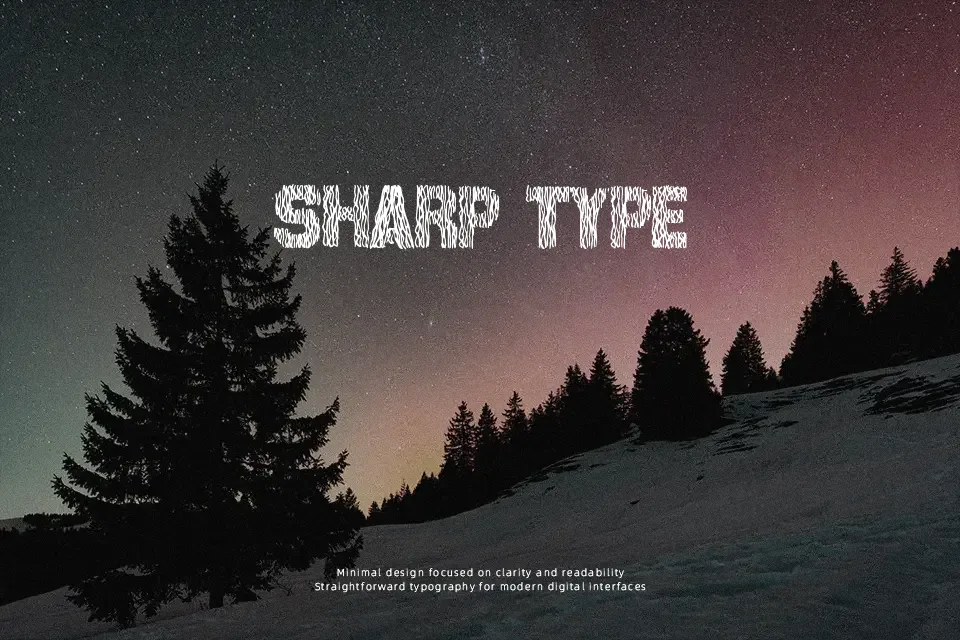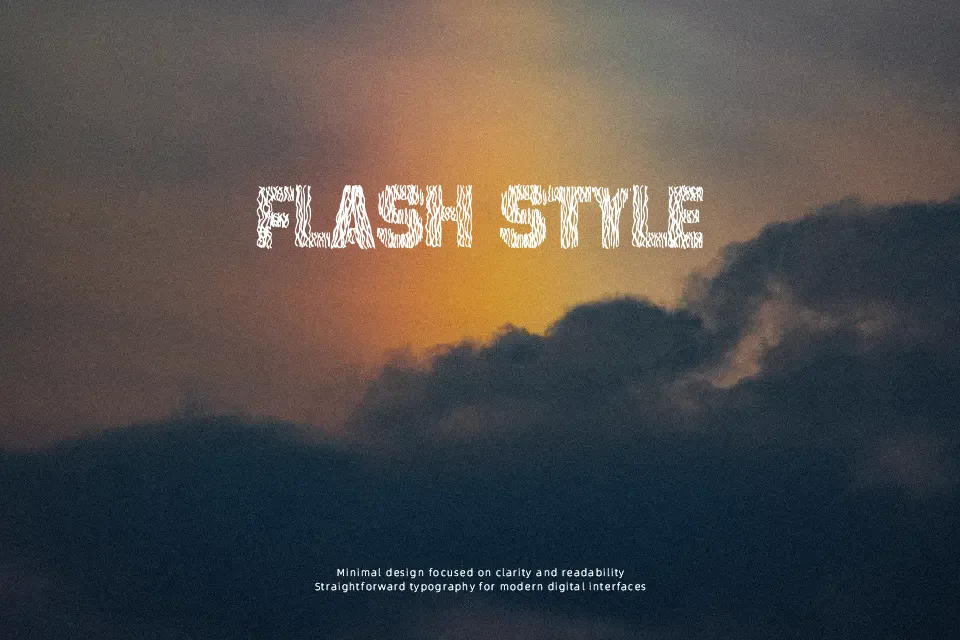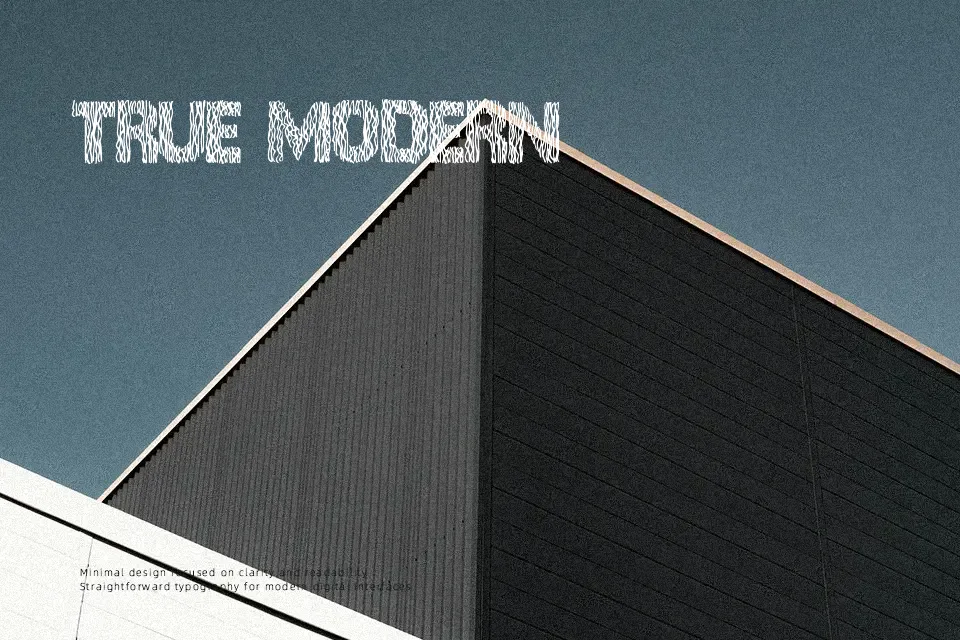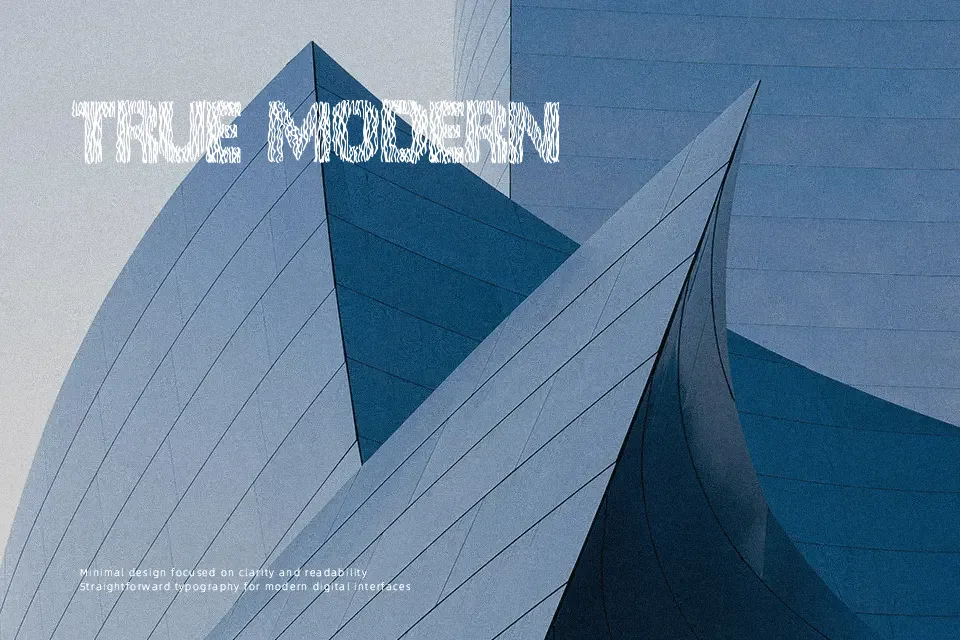
Surf Point Font
Surf Point Font is characterized by experimental decorative strokes, irregular contour cuts, and pronounced display proportions that emphasize expressive character shapes. The letterforms utilize relatively uniform stroke weights paired with tight internal negative spaces, creating an energetic visual rhythm across title layouts. Spacing remains intentionally compact, which reinforces graphic cohesion when set in brief merchandise titles, music banners, or surfwear apparel branding. However, these unconventional contours significantly reduce legibility at small sizes, making the typeface unsuitable for continuous body text or dense editorial paragraphs. For maximum effectiveness, the design functions best when applied sparingly to short, large-scale headlines where decorative personality takes priority over rapid reading.
Best For: surf apparel branding, music festival posters, merchandise headline graphics, event banner titles
Not Ideal For: continuous body text, dense editorial paragraphs, mobile user interface labels, formal document typesetting
Perfect for advertising, branding, and headline, with a artistic and decorative style.